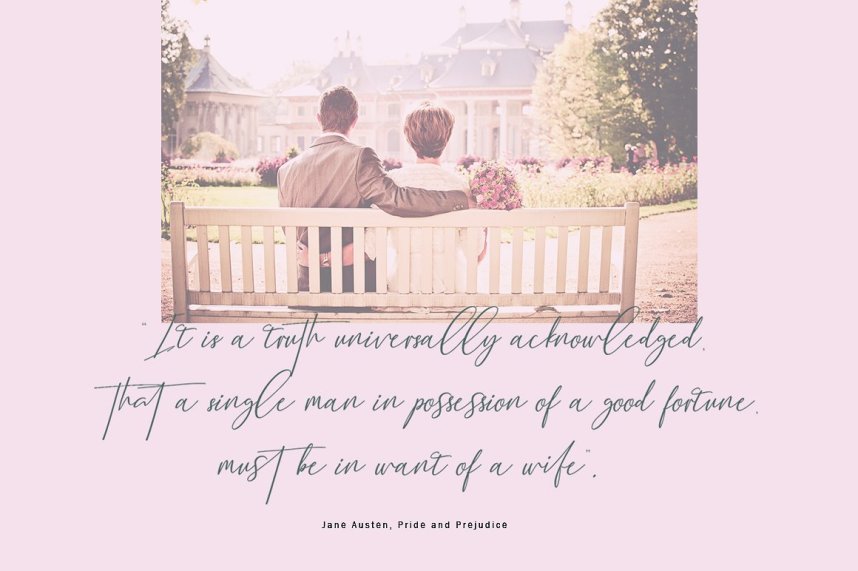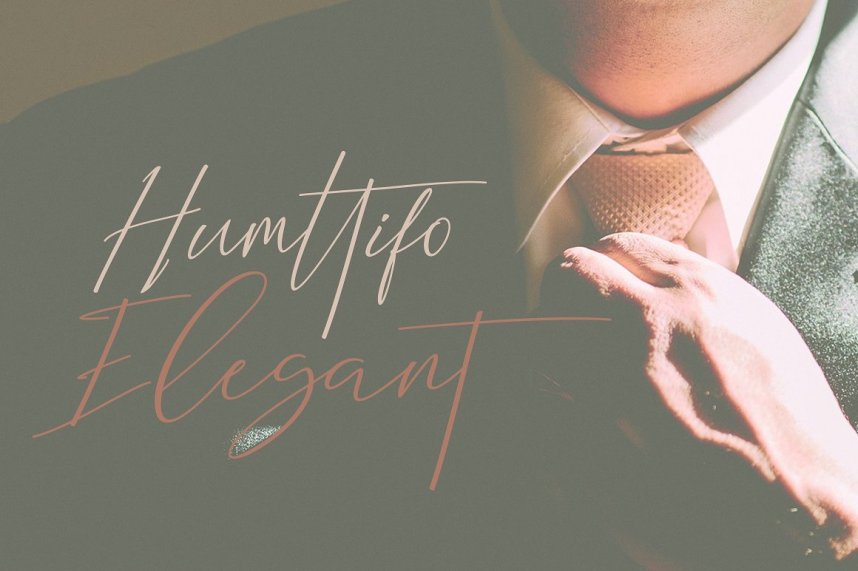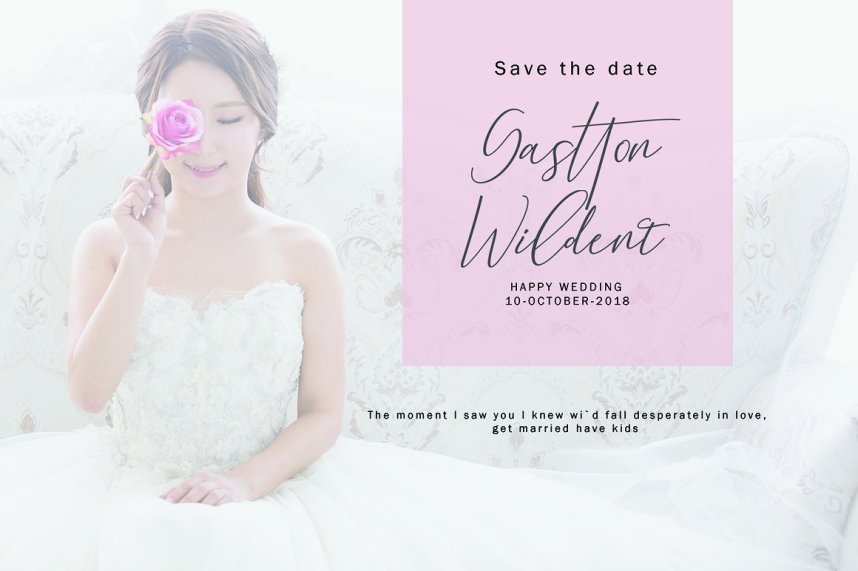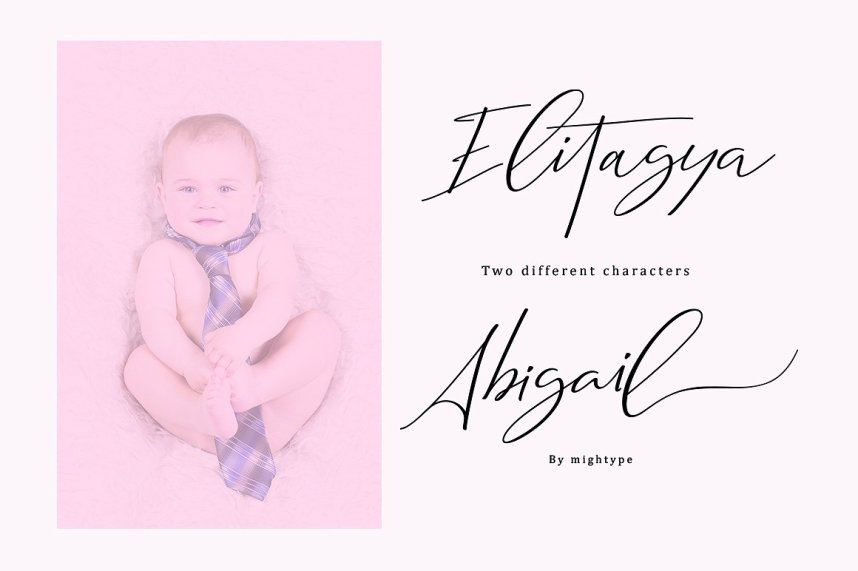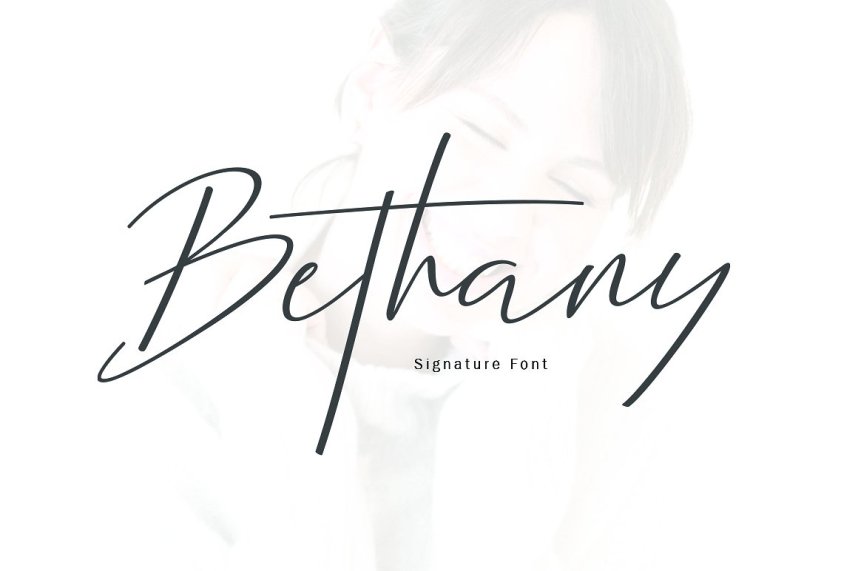
New Bethany Script Font
A font that looks absolutely handwritten and created by hand. This handwritten font is ideal for branding and decorate your any project. Introducing Bethany Font. Bethany is a modern calligraphy font with the current handwriting style, this font is perfect for branding, wedding invites, magazines, mugs, business cards, quotes, posters, and more, you can try first if you want to buy this font.